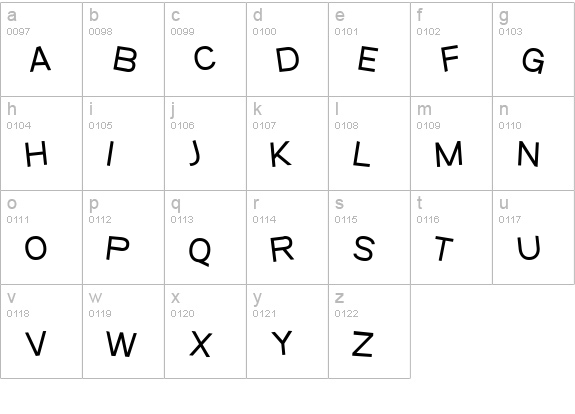
SF Beaverton SC Medium Font Details
SF Beaverton SC Medium is a balanced, medium-weight variant in the SF typeface family \xE2\x80\x94 well suited to sub-headlines, navigation, and balanced editorial work.
SF Beaverton SC Medium font is a stunning typeface that brings elegance and sophistication to any design project. It features a medium weight, making it perfect for both headings and body text. With its unique and modern letterforms, this font is sure to capture attention and leave a lasting impression. The SF Beaverton SC Medium font is a versatile typeface that can be used across a wide range of design applications, from print materials to digital platforms. Its clean lines and balanced proportions make it highly legible and easy to read, ensuring that your message is conveyed with clarity and impact. One of the best things about SF Beaverton SC Medium font is that it is freely available to download at FontsMarket.com. This means that you can use this exceptional font in your projects without any cost. Whether you are a professional designer or a hobbyist, having access to a high-quality font like SF Beaverton SC Medium can make a world of difference in your work. So why wait? Head over to FontsMarket.com and download SF Beaverton SC Medium font today. Elevate your designs with this exceptional typeface and make a statement that is both stylish and professional.